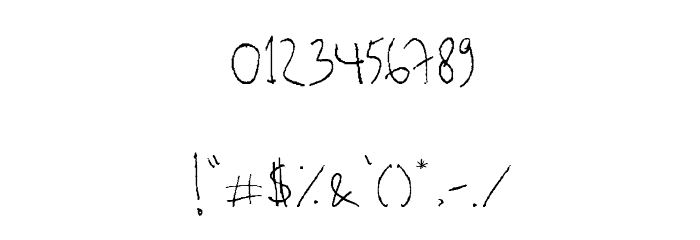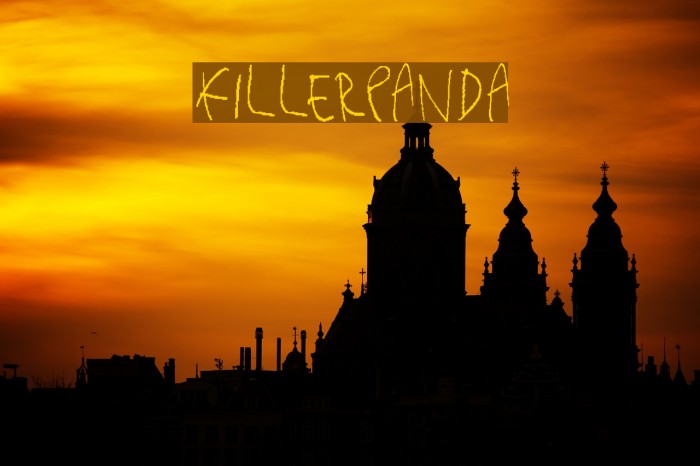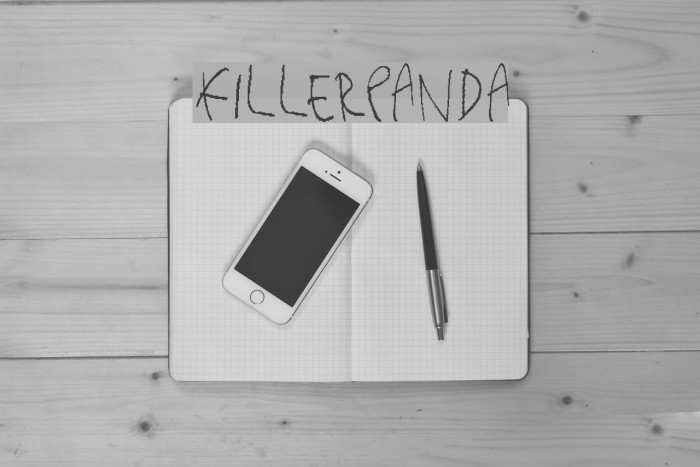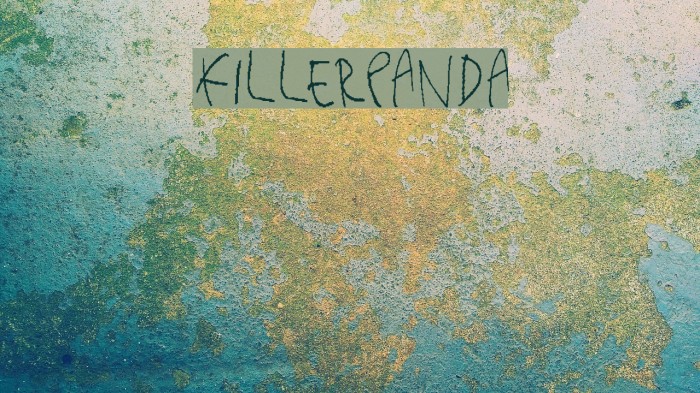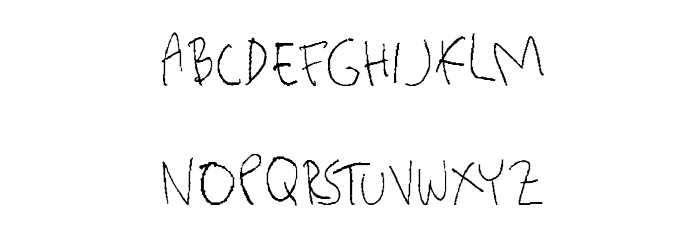
killerpanda Font
killerpanda Description
This font features a playful and casual handwritten style, characterized by its irregular and slightly erratic strokes. The letters have a whimsical, almost childlike quality, with varying heights and slants that give it a dynamic and informal appearance. The strokes are thin and uneven, adding to the hand-drawn feel. The font maintains legibility despite its quirky design, making it suitable for creative and informal applications. Its unique character is further emphasized by the slightly exaggerated curves and angles, which contribute to its distinctive personality.
| Overall Style | Casual, Playful |
| Use Case | Headlines, Informal text, Creative projects |
| Proposed Projects | Ideal for children's books, greeting cards, casual invitations, and creative branding projects. |